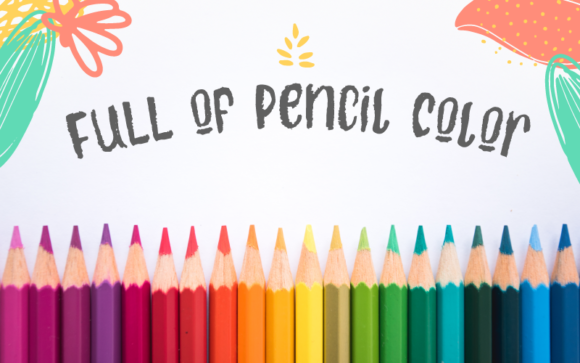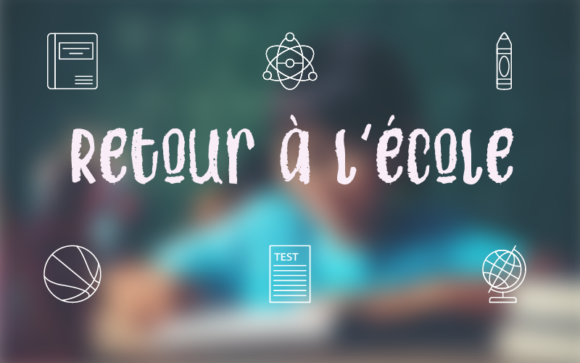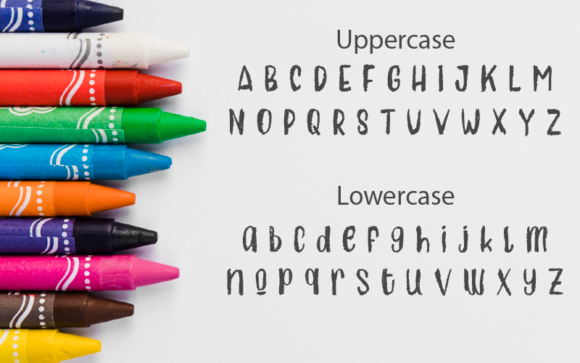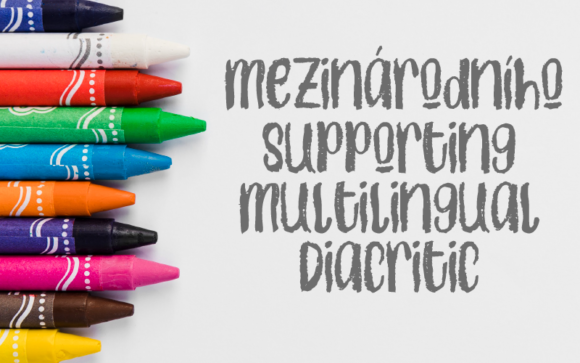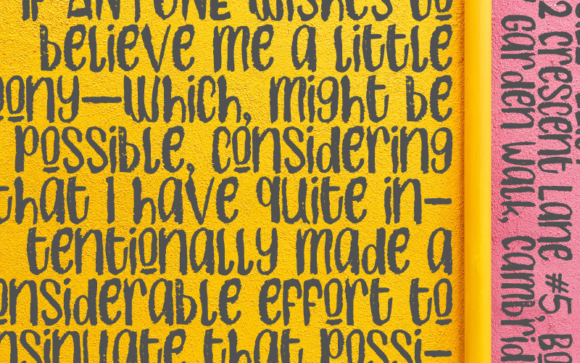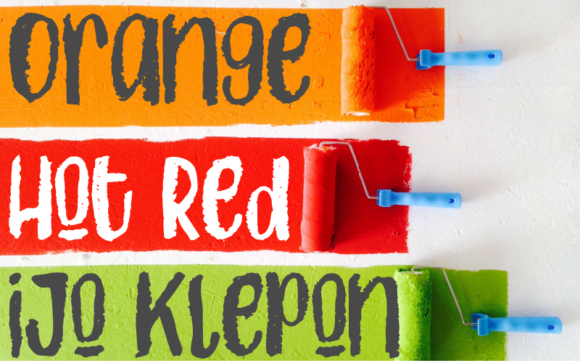
Introduction to Korayone Font
Have you ever found yourself in a creative jam, struggling to convey the right message in your design project? You’ve poured your heart and soul into the concept, but something’s just missing that je ne sais quoi. That’s where the Korayone Font comes in – a game-changing design resource that can breathe new life into your creative project.
With its unique blend of playful, childish charm and sophisticated undertones, Korayone Font is the perfect addition to any design arsenal. Whether you’re working on a high-profile campaign or a personal passion project, this versatile font is sure to elevate your work and leave a lasting impression on your audience.
What sets Korayone Font apart is its natural, handwritten feel, achieved through the use of Crayon strokes that evoke a sense of transparency and authenticity. Plus, with its comprehensive character set, including uppercase and lowercase letters, numbers, and multilingual diacritics, you’ll have everything you need to bring your design vision to life – and download it for free, no less!
Key Features of Korayone Font
- Includes a range of stylish and elegant characters, perfect for use in logo designs, branding materials, and other visual projects.
- Designed to be a versatile design resource, suitable for a wide range of creative applications, from web design to print media.
Honest Review: Korayone Font
I recently had the chance to work with the Korayone Font for a creative project, and I must say, it’s been a pleasant experience. This high-quality font has a lot to offer, especially for designers who are looking for a free download.
What works well with the Korayone Font is its versatility. It comes in a variety of styles, from modern to elegant, making it suitable for a range of design projects. The transparent background also gives designers the flexibility to customize the font to their liking.
However, I did encounter some limitations while working with the Korayone Font. The font’s legibility can be affected by the size and spacing, which may require some adjustments.
- ⚠️ May require adjustments for optimal legibility
- ⚠️ Limited support for some languages
Overall, I’m impressed with the Korayone Font, and I think it’s a valuable addition to any designer’s toolkit. While it may have some limitations, its high-quality design and versatility make it a great resource for any creative project.
Tips for Getting the Most Out of Korayone Font
To get the most out of Korayone Font, use it on a transparent background to create a beautiful and high-quality design. You can also combine it with other design resources to create a unique and creative project.
Korayone Font is a versatile design resource that can be used in a variety of projects, including logos, brochures, posters, and social media graphics. Its high-quality and transparent background make it perfect for designers looking for a free download that can elevate their creative project.